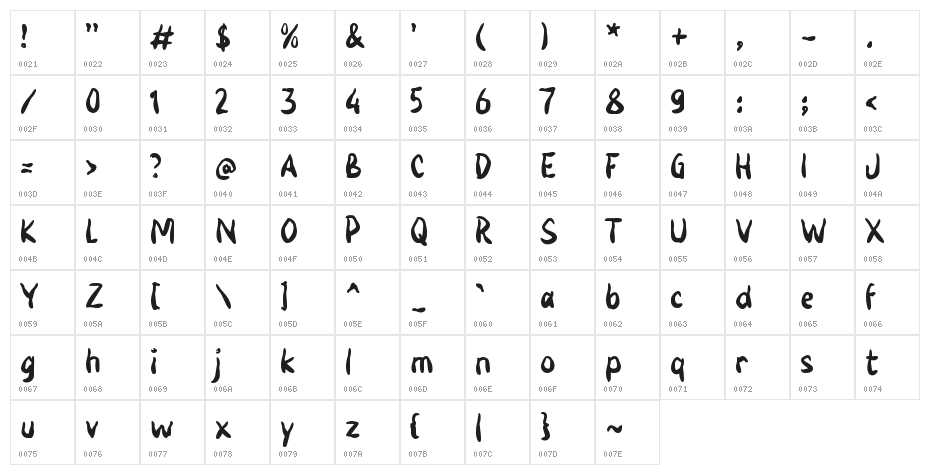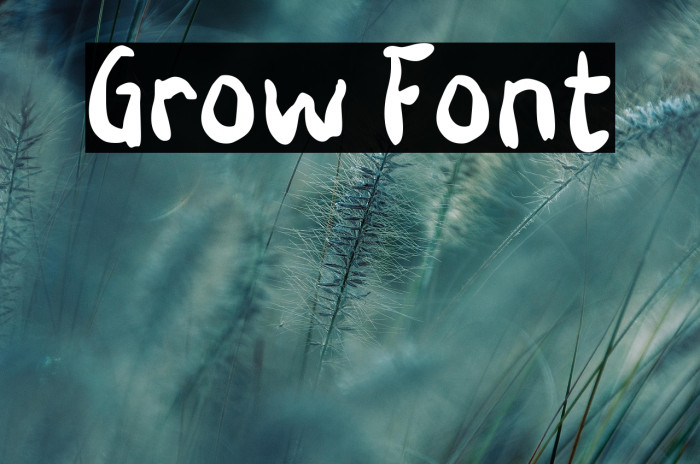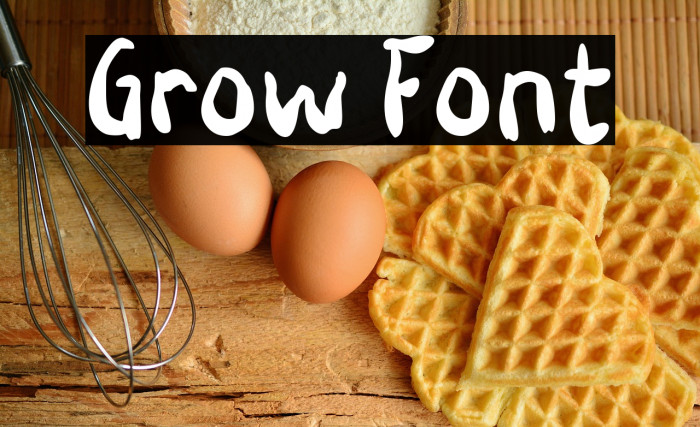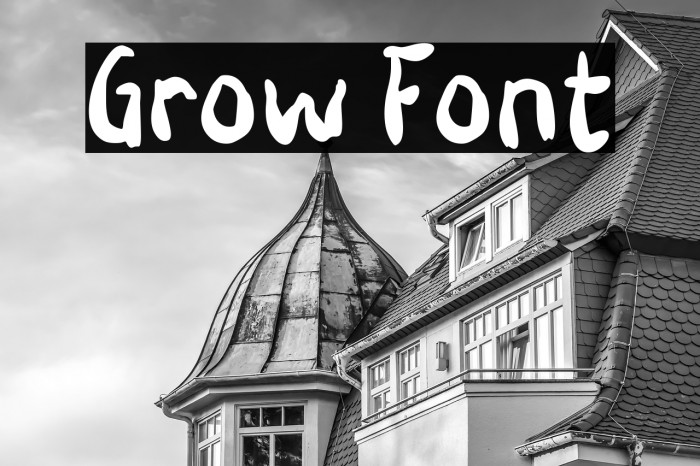
Grow Font
Grow Description
This font features a playful and organic style, characterized by its bold and uneven strokes that give it a hand-drawn appearance. The letters are slightly irregular, adding a whimsical and informal touch. The uppercase and lowercase letters maintain a consistent flow, while the numbers and special characters complement the overall aesthetic. This font's unique charm makes it stand out, ideal for projects that require a personal and creative feel.
| Proposed Projects | Ideal for children's books, creative posters, branding for artisanal products, and casual invitations. |